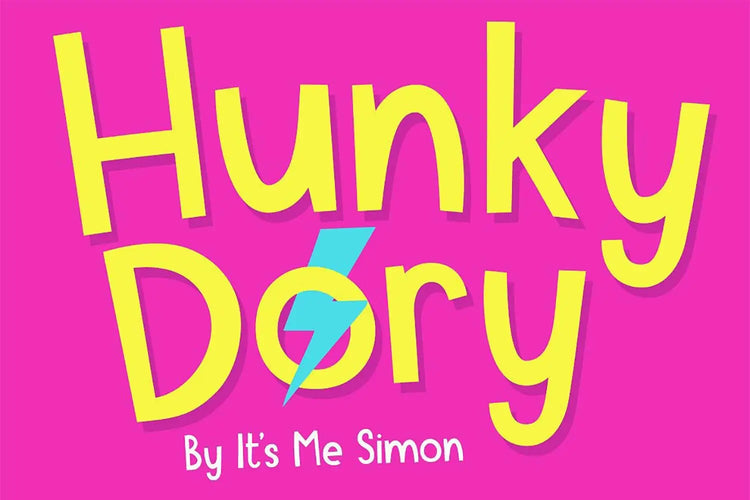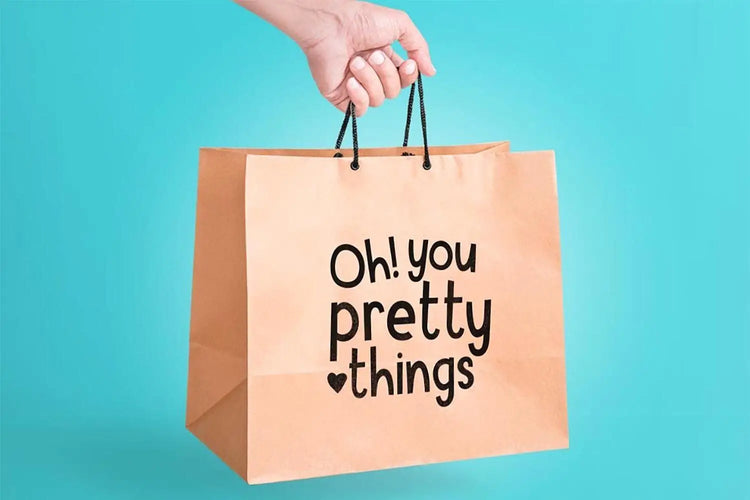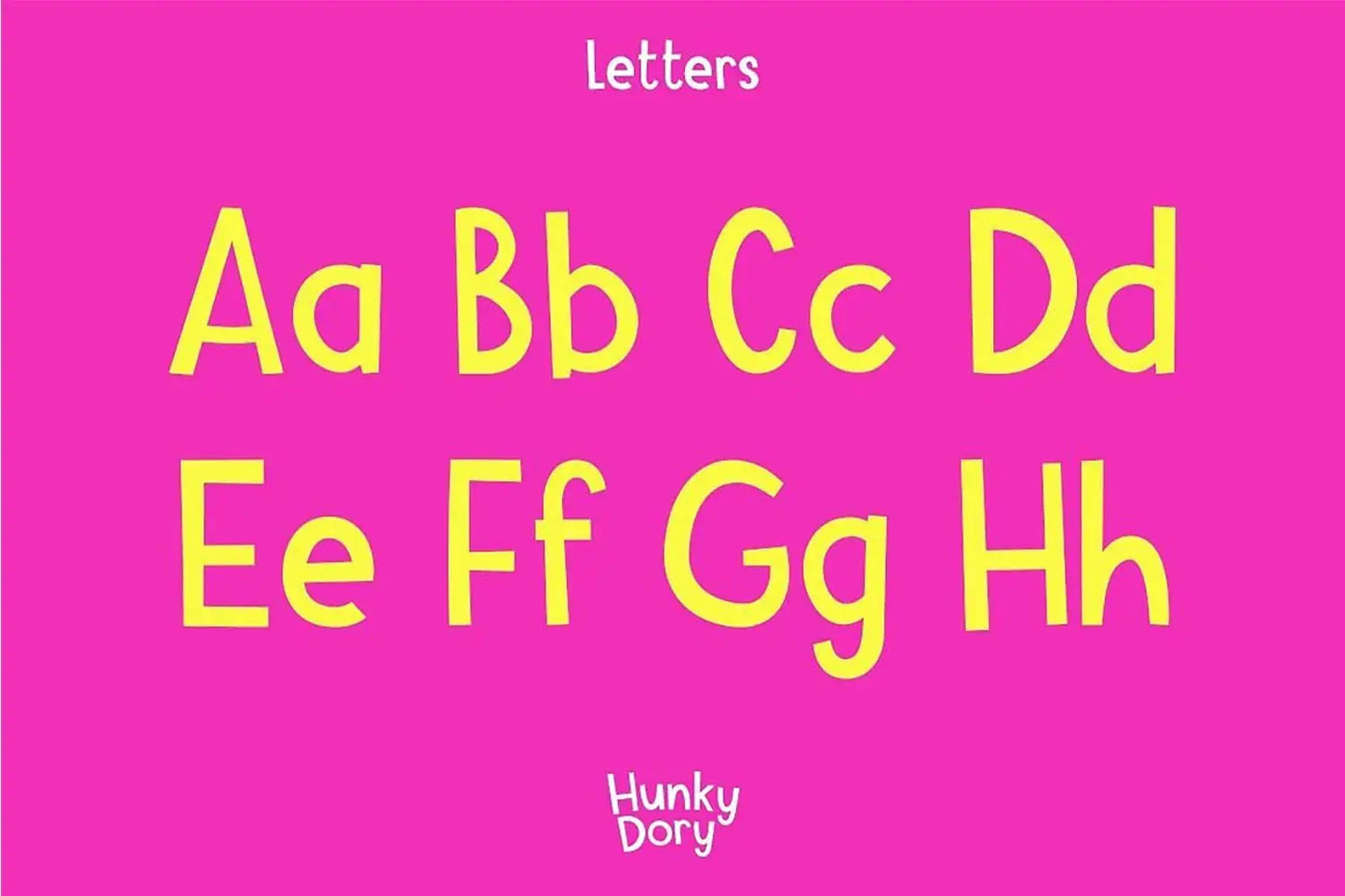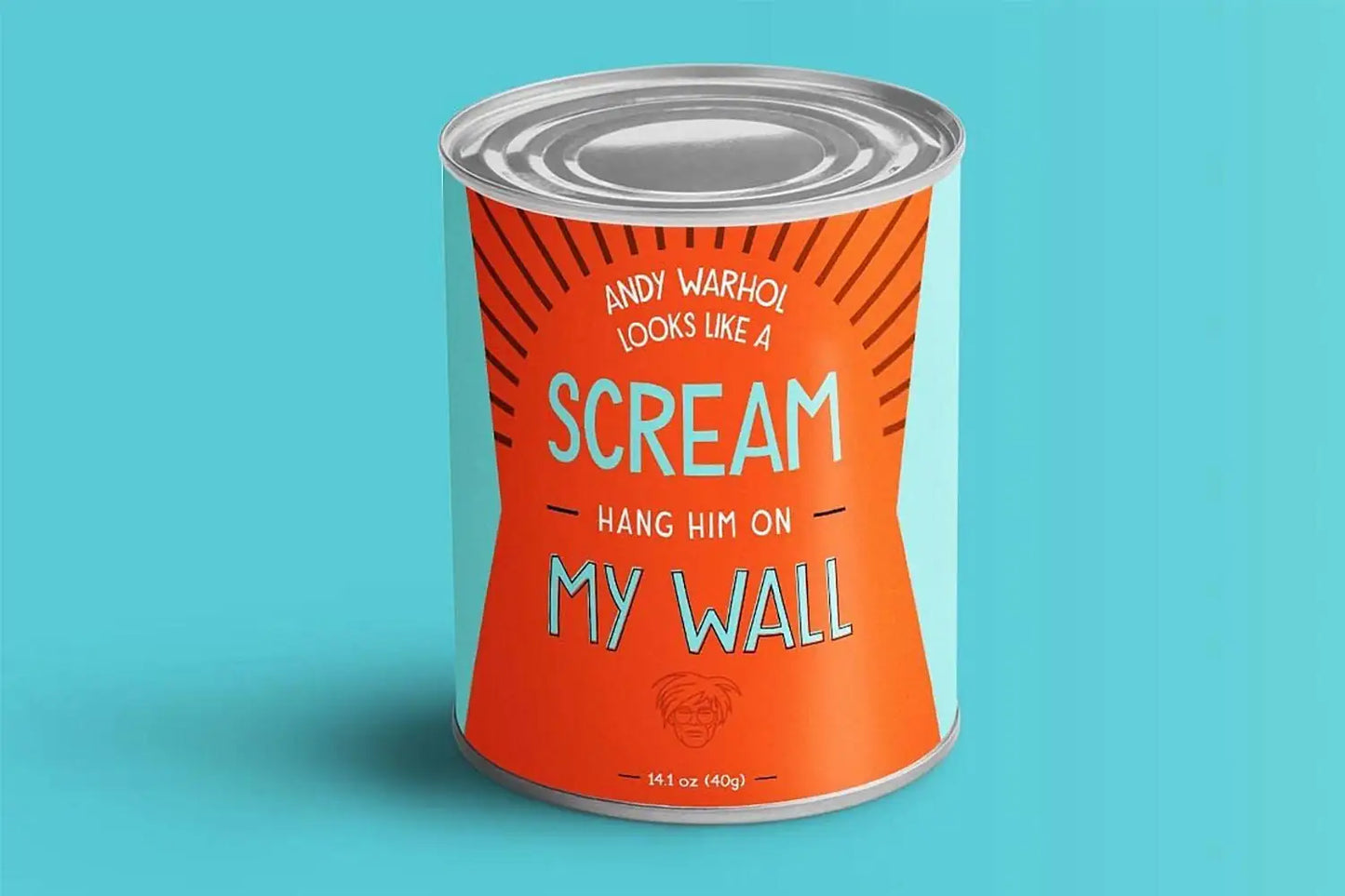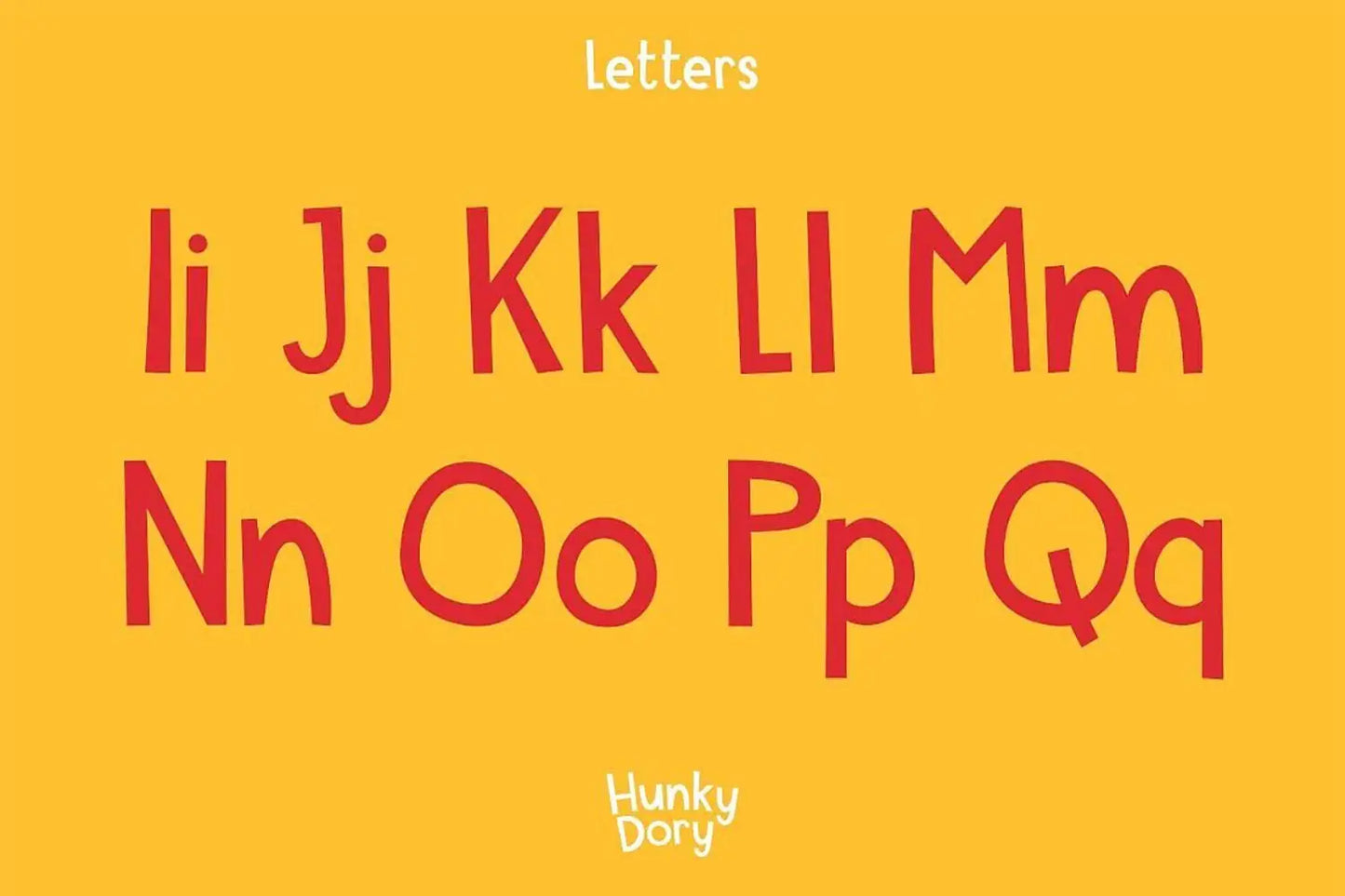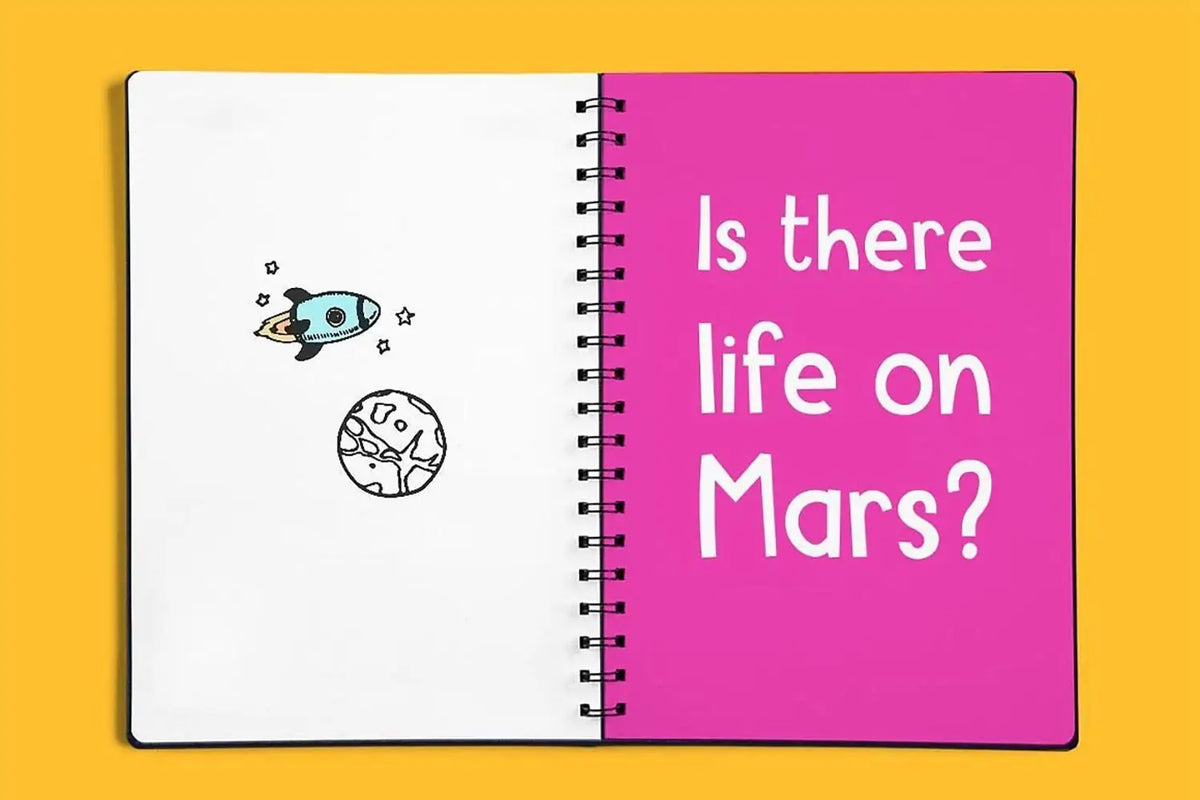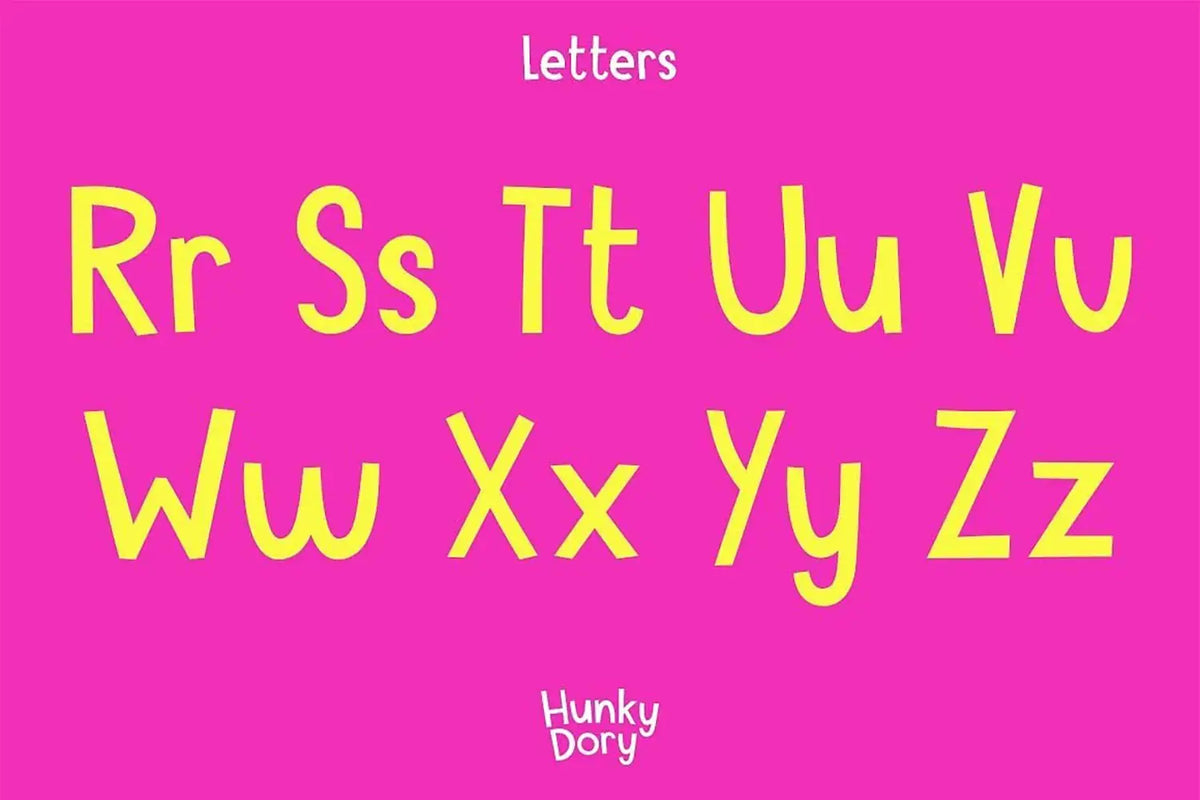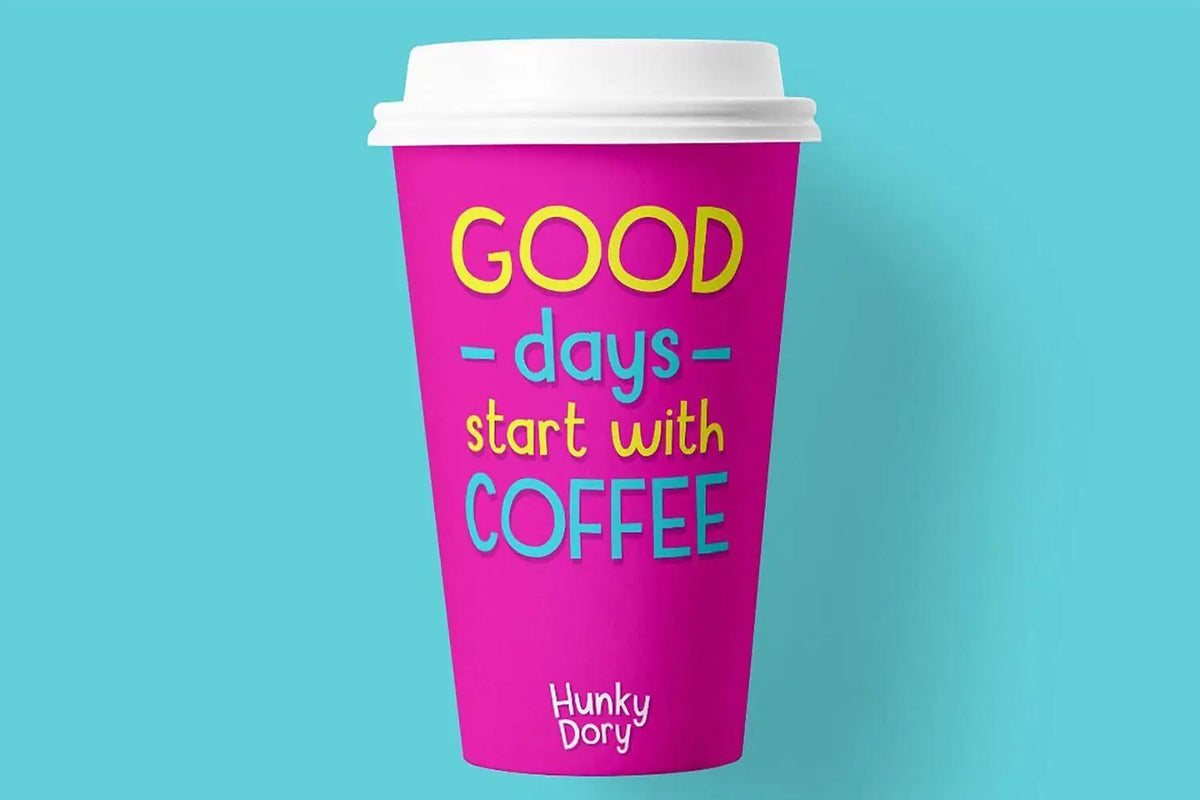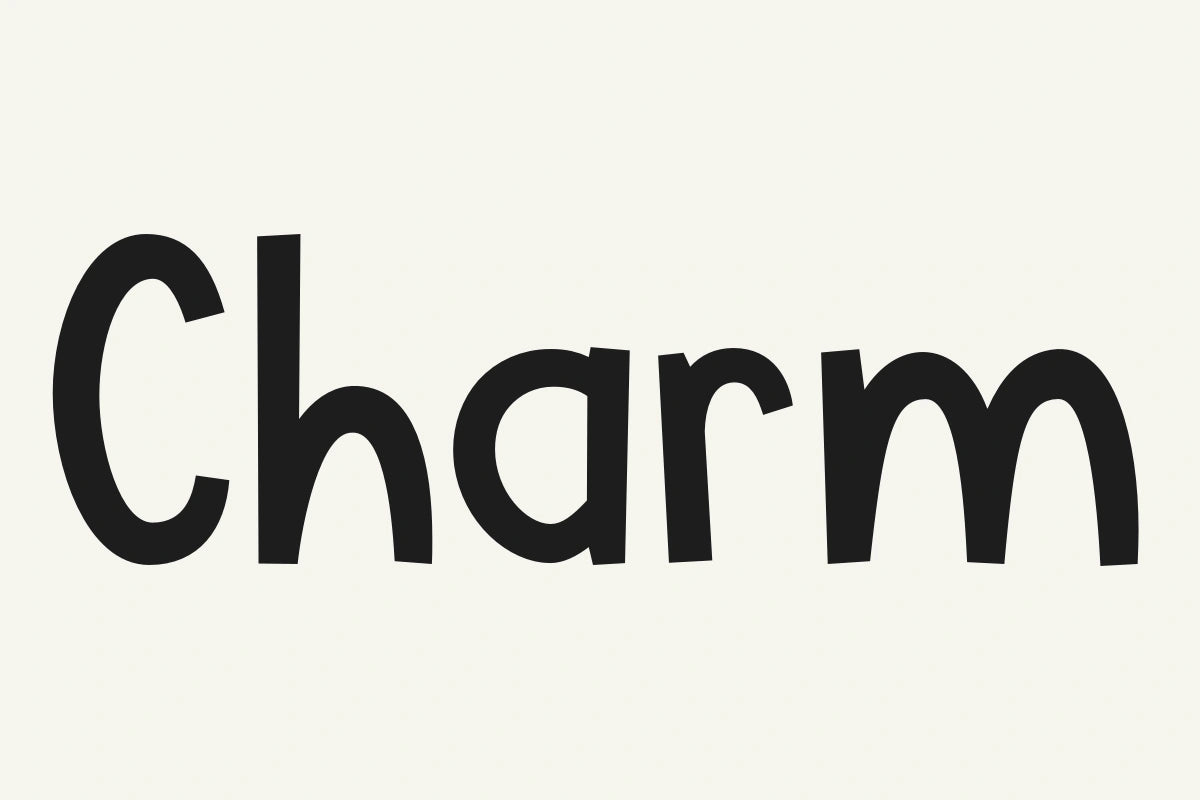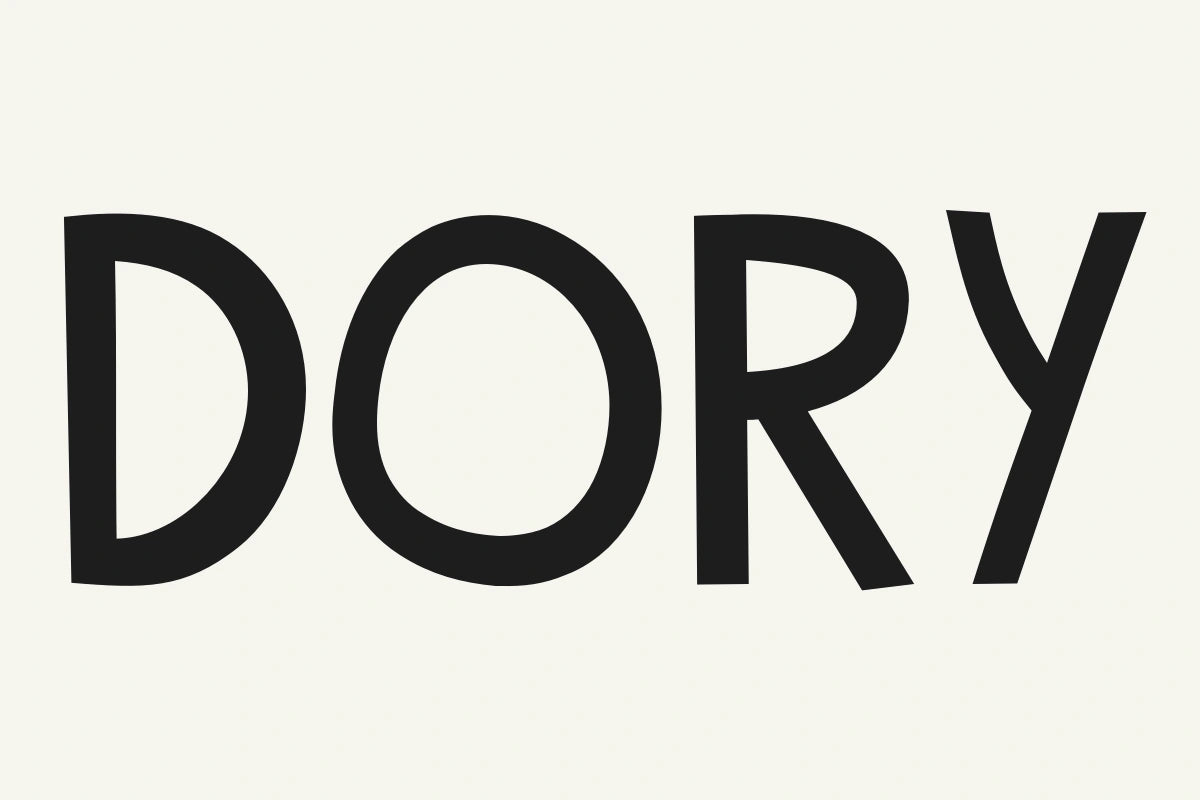
Hunky Dory — Bold Display Sans Font
About Hunky Dory
Introducing Hunky Dory font, a bold display type bursting with playful charm, named in homage to the legendary David Bowie—yes, I'm a Bowie fan.
This font's childlike simplicity exudes an innocence that adds a delightful look to your designs.
Its clean lines and curves make it perfect for packaging, branding, headlines, and logos.
It's not just a pretty face; it's highly legible in both big and small sizes, whether you're working on print or screen projects.
If Hunky Dory font were a celebrity
Well, think of it this way – if the Hunky Dory font were Anna Kendrick, it'd be your go-to font for adding a playful charm and all-around versatility to your designs. This font has that same magnetic vibe that can elevate any project to a whole new level.